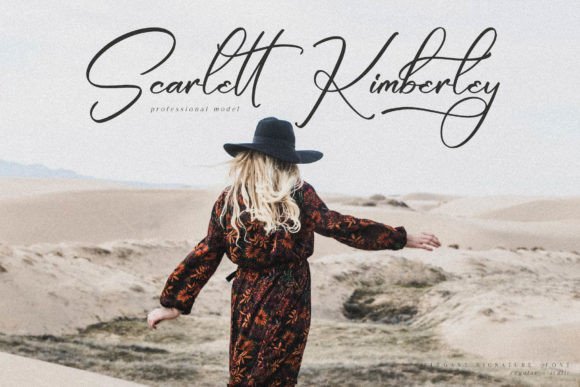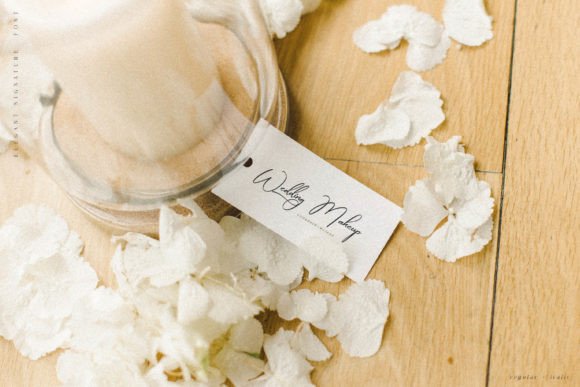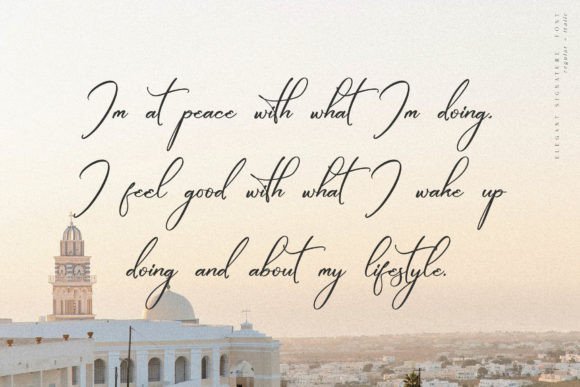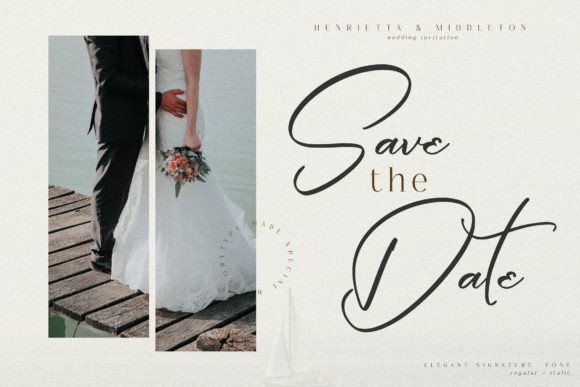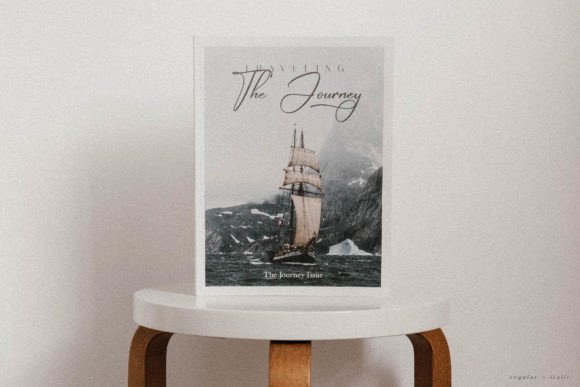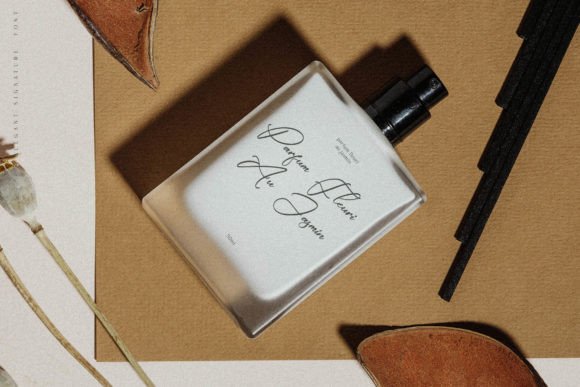
Fanthemy Font: The Elegant and Charming Choice for Designers and Crafters
In the world of typography, fonts play a crucial role in conveying the tone and personality of a design. For designers and crafters looking for a font that exudes elegance and charm, Fanthemy Font is an excellent choice. This beautiful handwritten font has gained popularity for its versatility and aesthetic appeal, making it perfect for a wide range of design projects.
The Charm of Fanthemy Font
Fanthemy Font feels equally charming and elegant, making it an ideal choice for designs that require a touch of sophistication. Its elegant strokes and beautiful lettering make it a standout font that can elevate any design. Whether you’re working on a wedding invitation, a thank you card, or a quote, Fanthemy Font is sure to impress.
Wedding designers and event planners, in particular, will love Fanthemy Font for its romantic and whimsical feel. It looks stunning on wedding invitations, save-the-date cards, and thank you cards, setting the tone for a beautiful and memorable event. The font’s elegant and refined appearance makes it perfect for formal events, such as galas, anniversaries, and baby showers.
Fanthemy Font is not limited to wedding and event designs. Its versatility makes it suitable for a wide range of design projects, including:
- Quotes and typography art
- Business cards and stationery
Wherever you need to add a touch of elegance and sophistication, Fanthemy Font is an excellent choice.
Why Designers and Crafters Love Fanthemy Font
Designers and crafters love Fanthemy Font for several reasons:
- Elegant and charming: Fanthemy Font adds a touch of sophistication and whimsy to any design.
- Versatile: The font is suitable for a wide range of design projects, from wedding designs to logos and branding.
- Easy to read: Despite its elegant appearance, Fanthemy Font is easy to read, making it perfect for body text and quotes.
- Unique and distinctive: Fanthemy Font has a unique and distinctive appearance that sets it apart from other fonts.
Tips for Using Fanthemy Font
To get the most out of Fanthemy Font, here are some tips:
- Pair with complementary fonts: Pair Fanthemy Font with complementary fonts to create a beautiful and harmonious design.
- Experiment with colors: Fanthemy Font looks stunning in a range of colors, from soft pastels to rich jewel tones.
- Use for headlines and titles: Fanthemy Font is perfect for headlines and titles, adding a touch of elegance and sophistication to your design.
In conclusion, Fanthemy Font is a beautiful and elegant font that is perfect for designers and crafters looking to add a touch of sophistication and whimsy to their designs. Its versatility, elegance, and charm make it suitable for a wide range of design projects, from wedding designs to logos and branding. Whether you’re a seasoned designer or a crafter, Fanthemy Font is an excellent choice for any design project that requires a handwritten touch.